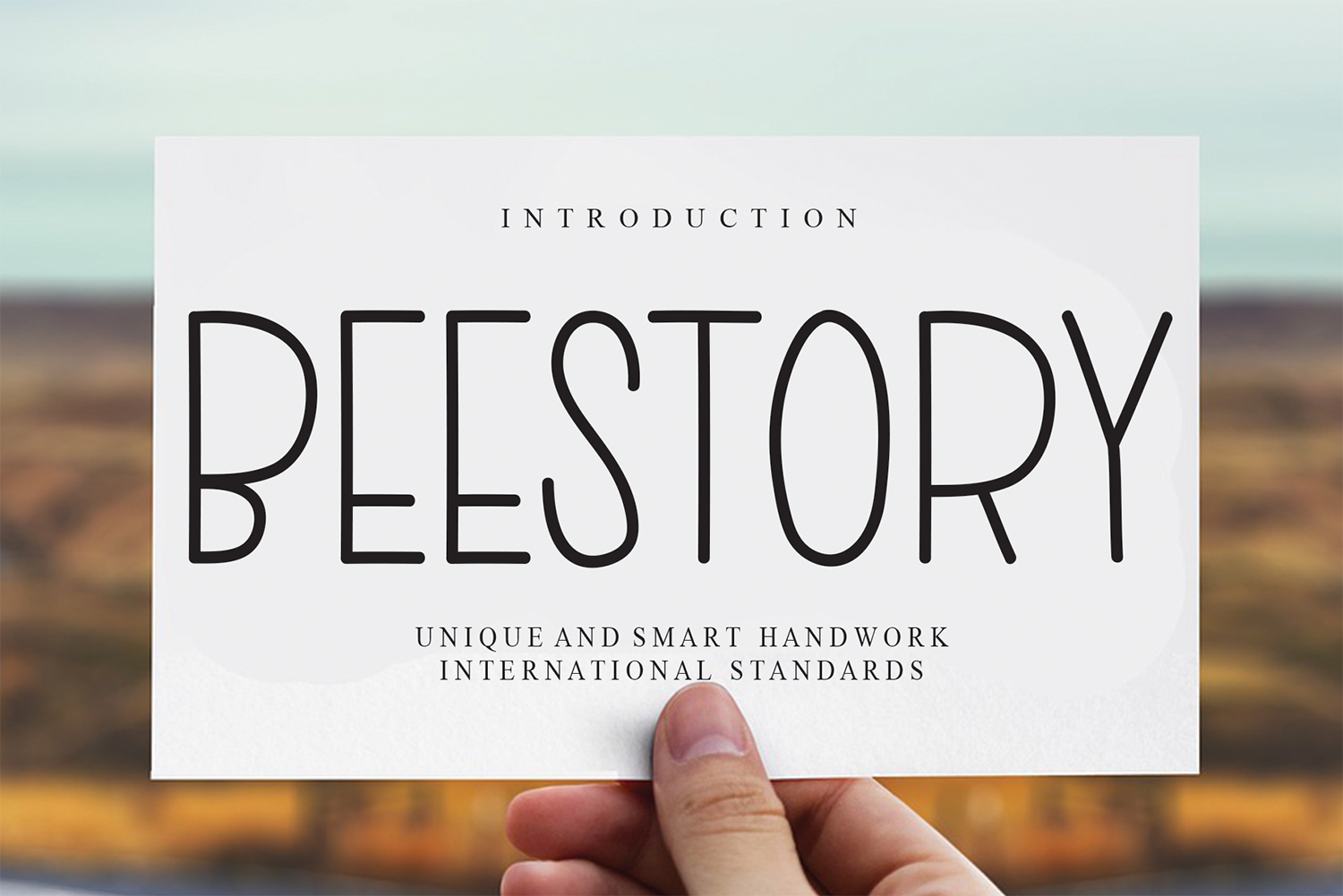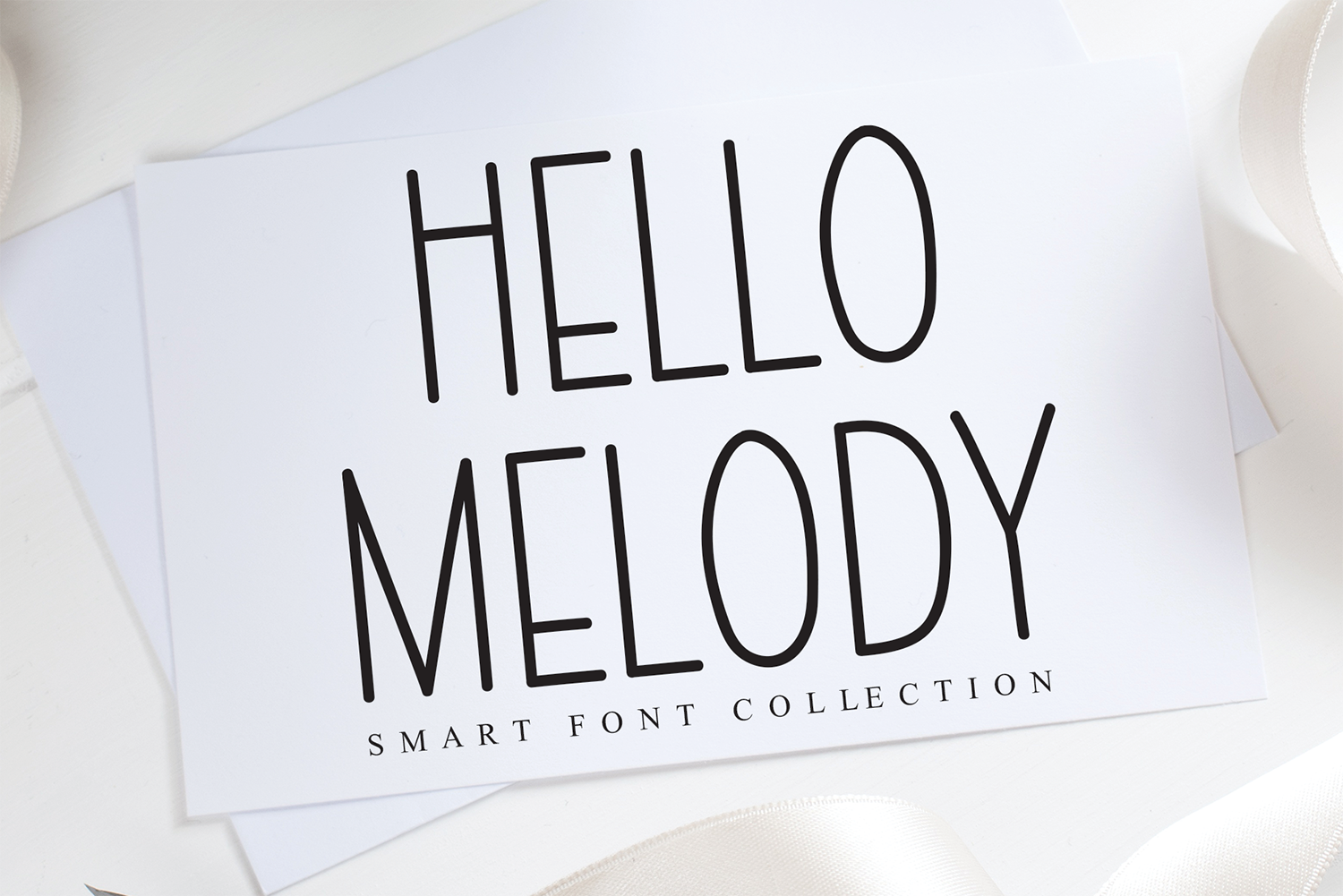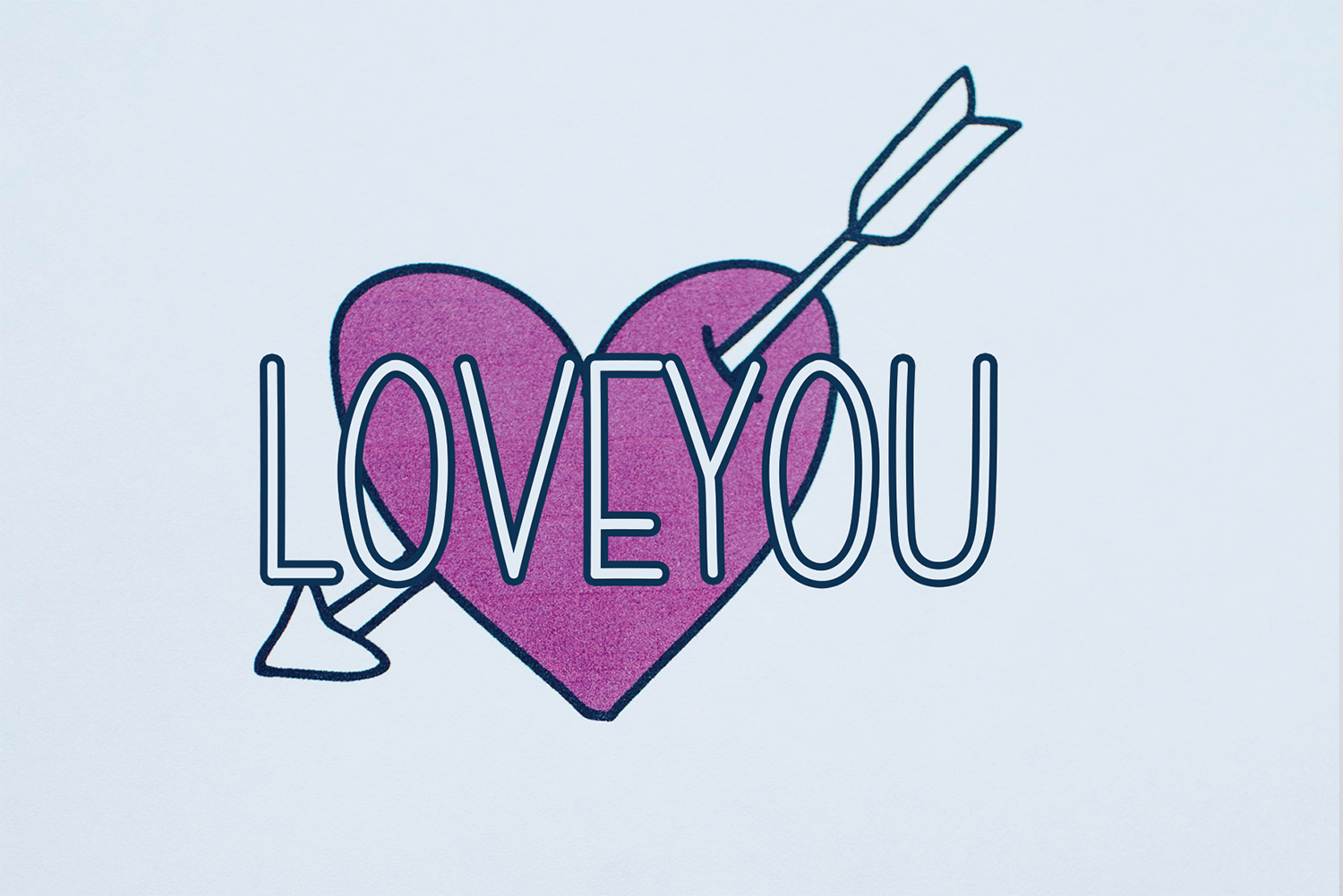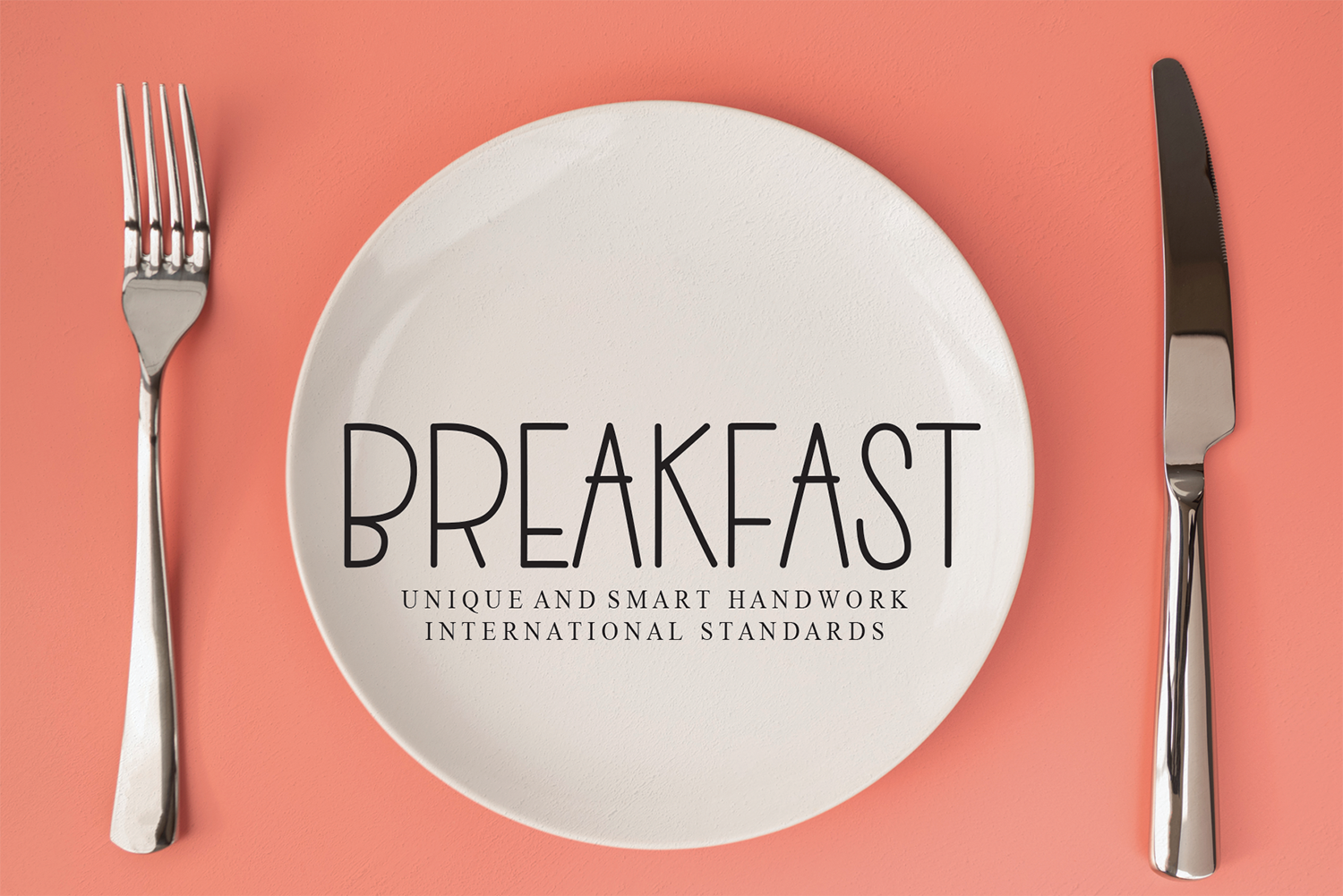
Beestory Free Font
Discover Beestory Free Font, a handwritten font exuding cleanliness and friendliness. Its inherent natural and distinctive style seamlessly adapts to a vast array of designs. Unleash your imagination, as the possibilities are boundless. This free typeface was designed by a talentedΒ Scratchones Creative. If you like it don’t forget to check out the full version.